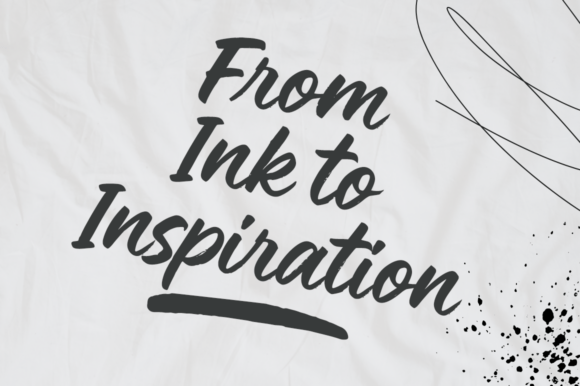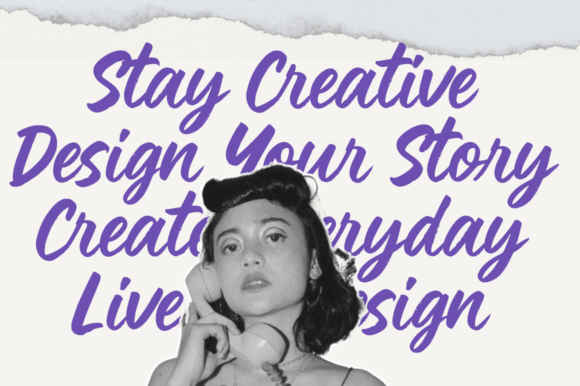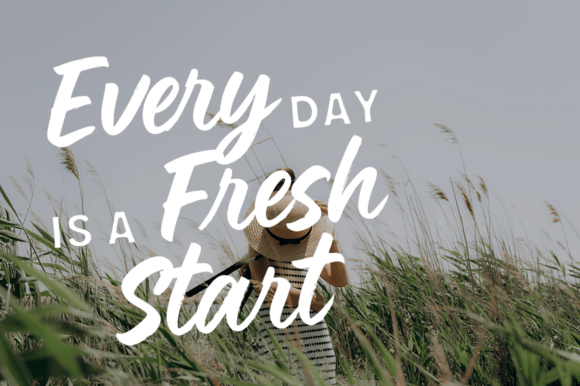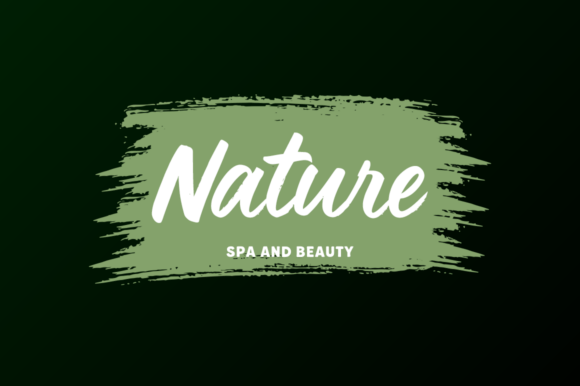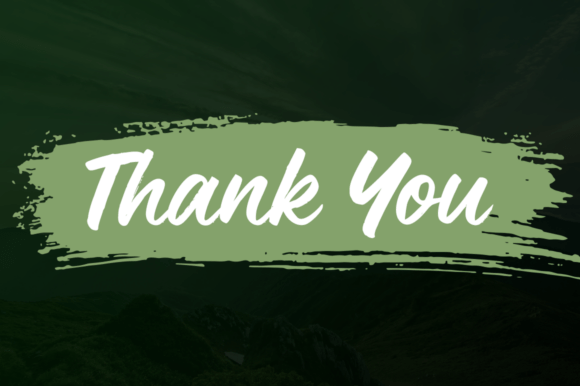
Carmila Brush Font: Elevate Your Designs with Modern Elegance
In the world of typography, a well-crafted font can make all the difference in elevating your design from ordinary to extraordinary. Introducing Carmila Brush Font, a modern brush script font that embodies the perfect blend of style, sophistication, and creativity. With its smooth, confident strokes and clean handwritten flow, Carmila is poised to become your go-to font for creating stylish, contemporary designs that exude professionalism.
The Art of Carmila Brush Font
Carmila’s design is rooted in the art of brush script typography, where every stroke and curve is carefully crafted to convey a sense of fluidity and movement. The font’s dynamic brush texture and natural rhythm give it an organic, hand-crafted feel that is both visually appealing and engaging. Whether you’re working on a branding project, advertising campaign, or editorial design, Carmila’s unique character is sure to captivate your audience and leave a lasting impression.
Key Features of Carmila Brush Font
- Smooth, confident strokes: Carmila’s strokes are designed to be smooth and confident, giving your designs a sense of elegance and sophistication.
- Clean handwritten flow: The font’s clean handwritten flow makes it perfect for creating designs that require a personal touch, such as invitations, greeting cards, and editorial content.
- Dynamic brush texture: Carmila’s dynamic brush texture adds a natural, organic feel to your designs, making them stand out in a crowded digital landscape.
- Balanced contrast: The font’s balanced contrast between thick and thin strokes creates a strong visual impact, making it ideal for use in branding, advertising, and editorial design.
Versatility Across Digital and Print Projects
One of the standout features of Carmila Brush Font is its versatility across digital and print projects. Whether you’re designing a website, social media graphics, or print materials such as brochures, posters, or business cards, Carmila delivers clarity and character in every layout. Its legibility and readability make it perfect for body text, while its stylish strokes and curves make it ideal for headlines and titles.
Carmila Brush Font is a dream come true for designers and crafters who value creativity, flexibility, and style. With Carmila, you can:
- Create stunning branding materials, such as logos, business cards, and letterheads, that reflect your brand’s personality and values.
- Design eye-catching advertising campaigns that grab attention and drive engagement.
- Develop beautiful editorial content, such as magazines, blogs, and social media graphics, that showcase your writing style and creativity.
- Make unique and personalized gifts, such as invitations, greeting cards, and gift tags, that show you care.
Why Choose Carmila Brush Font?
In a world where typography plays a crucial role in design, Carmila Brush Font stands out for its unique blend of style, elegance, and creativity. Here are just a few reasons why you should choose Carmila for your next design project:
- Unique and distinctive: Carmila’s dynamic brush texture and natural rhythm make it a one-of-a-kind font that will set your designs apart from the rest.
- Highly versatile: The font’s versatility across digital and print projects makes it perfect for a wide range of design applications.
- Easy to read and legible: Carmila’s clean handwritten flow and balanced contrast make it easy to read and legible, even at small font sizes.
- Professional and stylish: The font’s smooth, confident strokes and elegant curves give your designs a professional and stylish look that’s sure to impress.
In conclusion, Carmila Brush Font is a modern brush script font that offers a unique blend of style, elegance, and creativity. With its smooth, confident strokes, clean handwritten flow, and dynamic brush texture, Carmila is perfect for designers and crafters who value flexibility, versatility, and style. Whether you’re working on a branding project, advertising campaign, or editorial design, Carmila is sure to elevate your designs and leave a lasting impression on your audience.